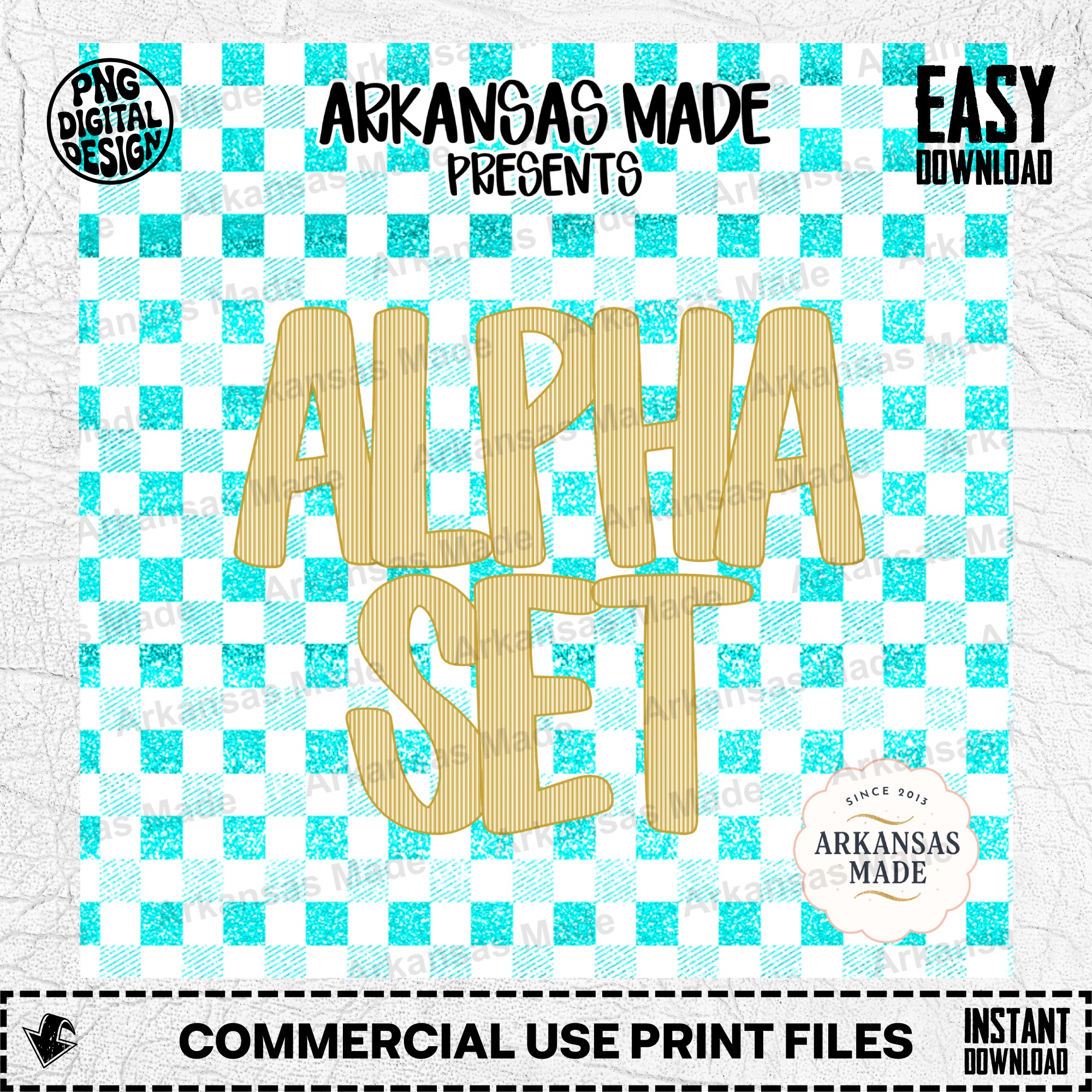
Faux Gold Pinstripe Alphabet PNGs | Digital Alpha Set | Lined Gold Letters Font | Luxury Effect Digital Crafting Alpha Set PNGs
Elevate your designs with our Faux Gold Pinstripe Alphabet PNGs! This digital alpha set features elegant lined gold letters for all your creative projects. Unleash sophistication with this luxury effect font, perfect for digital crafting, sublimation, and personalized gifts. Ideal for small business branding, custom apparel, wedding invitations, and home decor. A versatile resource for graphic designers and DIY enthusiasts seeking a chic, modern aesthetic.